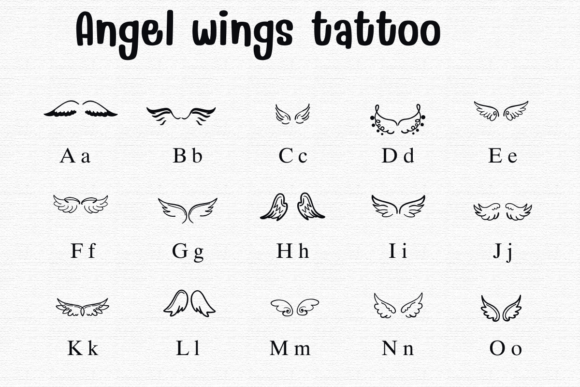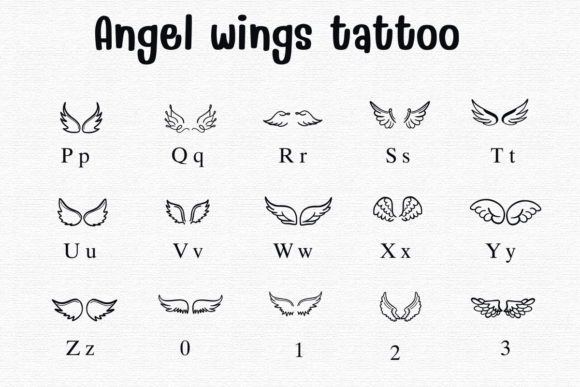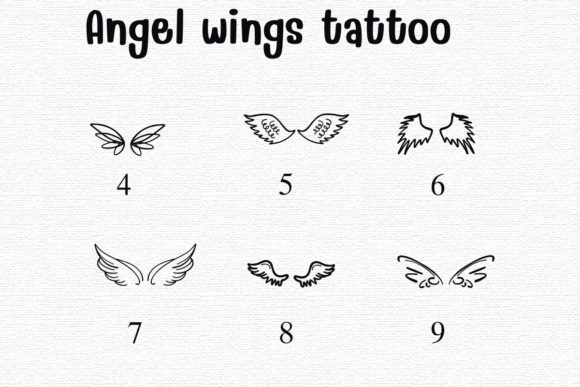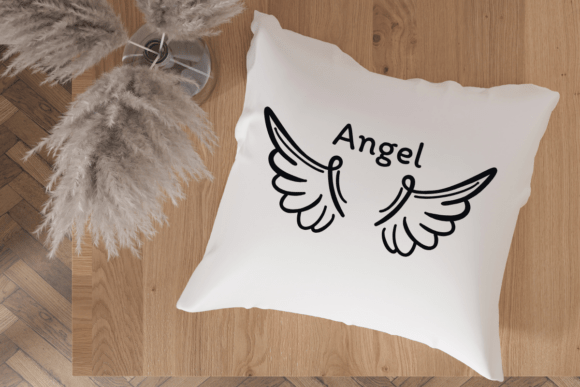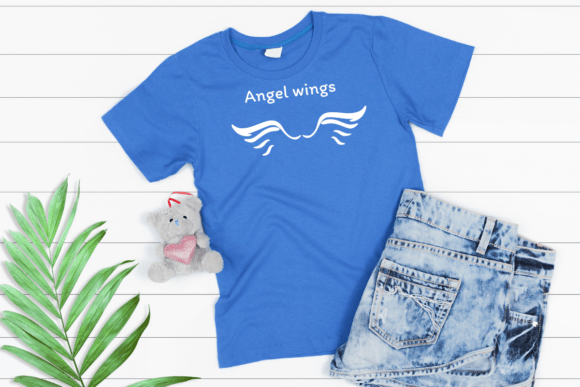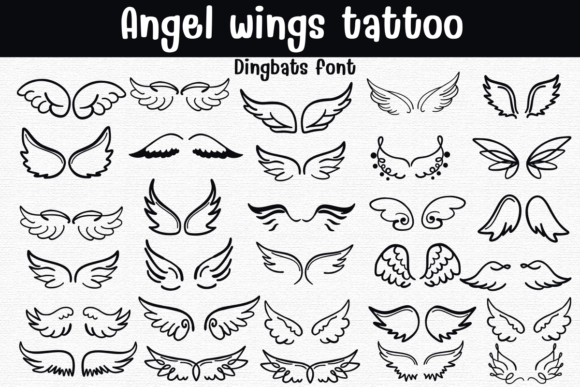
Elevate Your Designs with Angel Wings Tattoo Font
Are you a designer or crafter looking for a unique and elegant touch to add to your creative projects? Look no further than the Angel Wings Tattoo font, a stunning dingbat font that brings a collection of beautifully designed wing symbols to your fingertips. With its clean, graceful lines and intricate curves, this font is perfect for a wide range of applications, from tattoos and logos to invitations, apparel, and spiritual or fantasy-inspired art.
A Collection of Beautifully Designed Wing Symbols
The Angel Wings Tattoo font features a diverse collection of wing symbols, each one carefully crafted to bring an artistic and elegant touch to your designs. From minimalist outlines to elaborate feathered designs, this font offers endless versatility and creative possibilities. Whether you’re looking for a bold, standout design or a subtle, delicate accent, this font has got you covered.
Endless Versatility for Creative Projects
One of the key benefits of the Angel Wings Tattoo font is its versatility. With a wide range of wing symbols to choose from, you can use this font for a variety of creative projects, including:
- Tattoos: Add a touch of elegance and beauty to your tattoo designs with this stunning font.
- Logos: Create a memorable and impactful logo for your business or brand with the Angel Wings Tattoo font.
- Invitations: Add a touch of whimsy and romance to your invitations with this beautiful font.
- Apparel: Create stunning apparel designs, from t-shirts to hoodies, with the Angel Wings Tattoo font.
- Spiritual or fantasy-inspired art: Use this font to add a touch of magic and wonder to your spiritual or fantasy-inspired art.
Balanced and Harmonious Forms
The Angel Wings Tattoo font features balanced and harmonious forms that create a sense of movement and lightness. This makes it perfect for designs where you want to convey a sense of freedom, beauty, and elegance. The font’s refined style and timeless appeal ensure that your designs will stand the test of time and remain beautiful for years to come.
Clean, Graceful Lines and Intricate Curves
One of the standout features of the Angel Wings Tattoo font is its clean, graceful lines and intricate curves. Each glyph is carefully crafted to bring a sense of elegance and beauty to your designs. From the delicate curves of the feathers to the bold lines of the wing outlines, this font is a true masterpiece.
The Angel Wings Tattoo font is a must-have for designers and crafters looking for a creative, symbolic element that exudes beauty and meaning. With its versatility, elegance, and timeless appeal, this font is perfect for anyone looking to elevate their designs and add a touch of magic to their creative projects.
Key Features of Angel Wings Tattoo Font
- Collection of beautifully designed wing symbols
- Clean, graceful lines and intricate curves
- Endless versatility for creative projects
- Balanced and harmonious forms
- Refined style and timeless appeal
- Perfect for tattoos, logos, invitations, apparel, and spiritual or fantasy-inspired art
In conclusion, the Angel Wings Tattoo font is a stunning dingbat font that brings an artistic and elegant touch to creative projects. With its beautifully designed wing symbols, clean lines, and intricate curves, this font is perfect for designers and crafters looking for a unique and symbolic element to add to their designs. Whether you’re looking for a bold, standout design or a subtle, delicate accent, the Angel Wings Tattoo font is a must-have for anyone looking to elevate their designs and add a touch of magic to their creative projects.